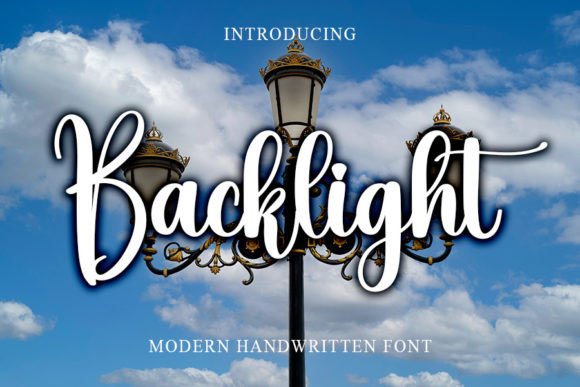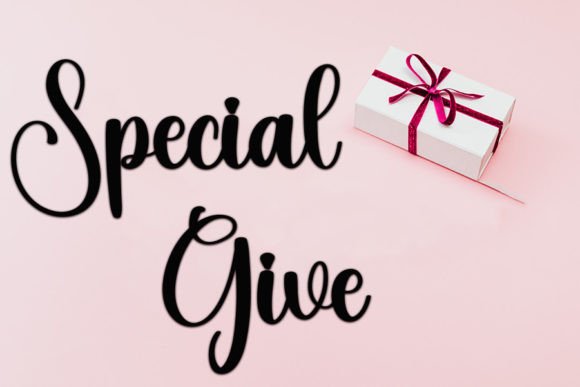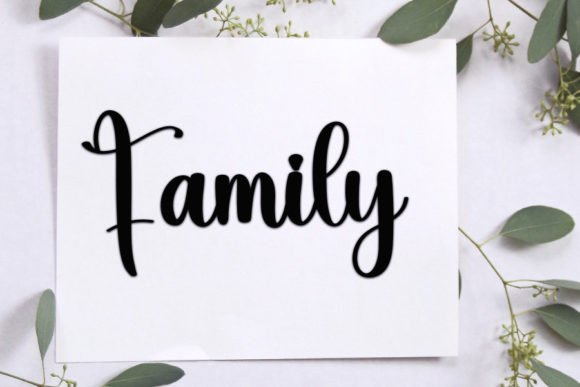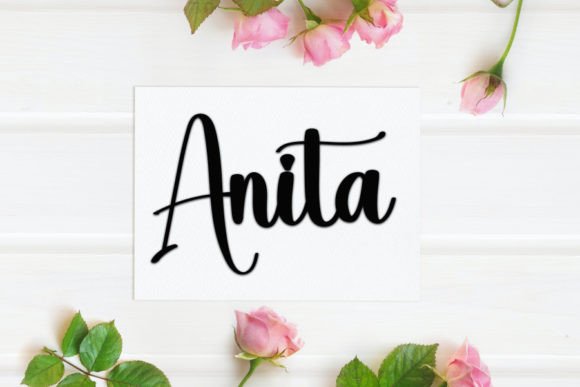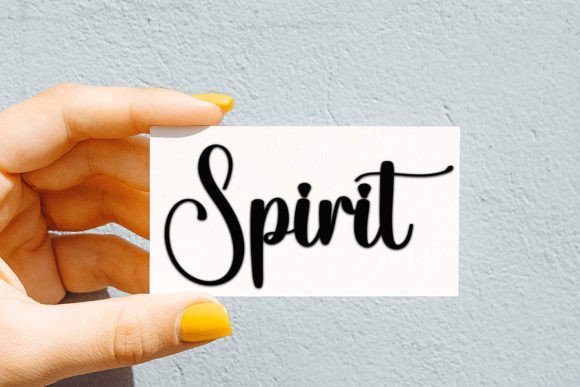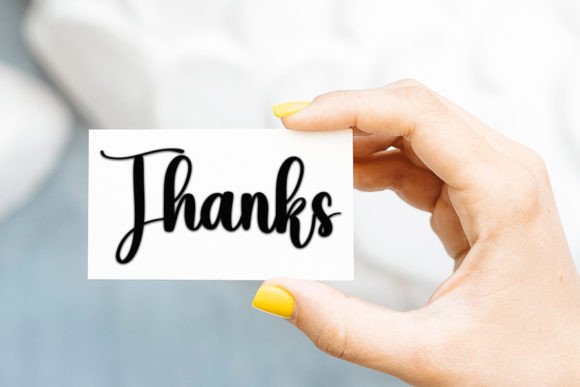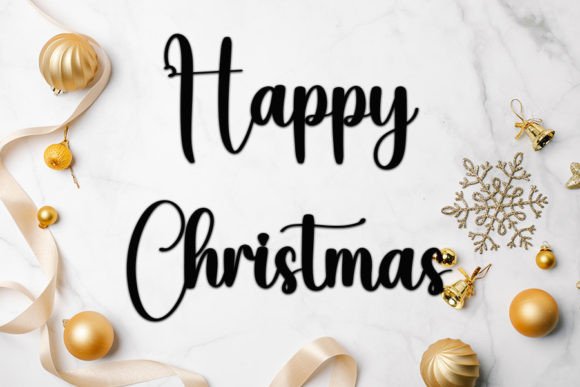
Backlight Font
Add Elegant Style with Backlight Font
The Backlight font is a trendy handwritten script that combines a contemporary vibe with the timeless beauty of classic calligraphy. Its impeccable form and stylish design make it an excellent choice for adding elegance and class to any creative project.
Perfect for Versatile Design Applications
The Backlight font works wonderfully across a variety of applications including branding, logos, invitations, posters, social media graphics, and packaging. Its sophisticated strokes and graceful flow give your designs a polished and memorable appearance.
A Handwritten Script Inspired by Classic Calligraphy
Each character in the Backlight font is crafted with smooth, flowing lines inspired by traditional calligraphy. This font balances artistic flair with readability, making it perfect for headlines, decorative text, and logo designs.
Despite its decorative style, the Backlight font maintains excellent readability at various sizes. Whether used for bold titles or subtle text elements, it combines classic elegance with clarity, making it a versatile choice for many design projects.
Elevate Your Designs with Backlight’s Timeless Spirit
Typography defines your design’s personality, and Backlight adds a stylish and timeless spirit. If you want to enhance your creative projects with a classy handwritten script, download the Backlight font today and create stunning, memorable visuals.